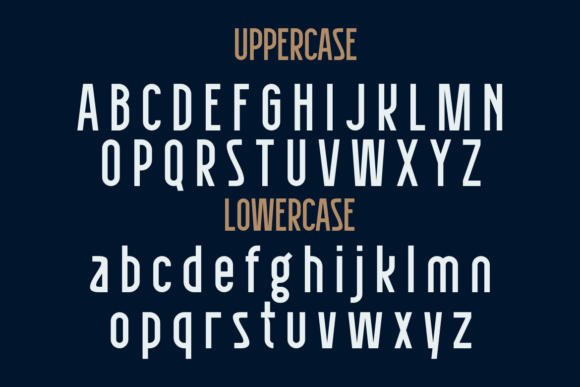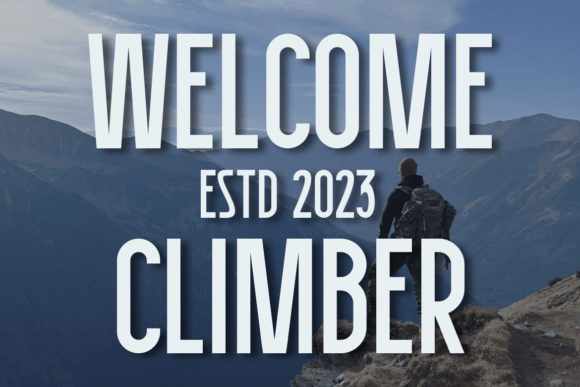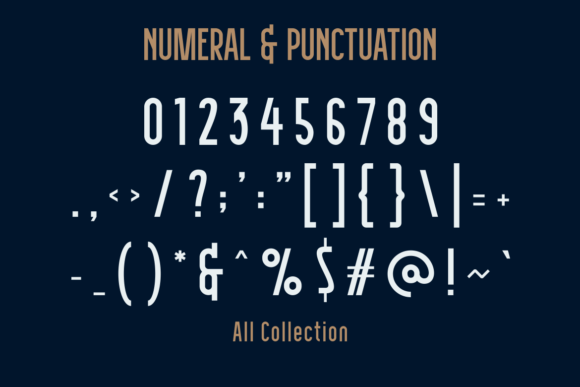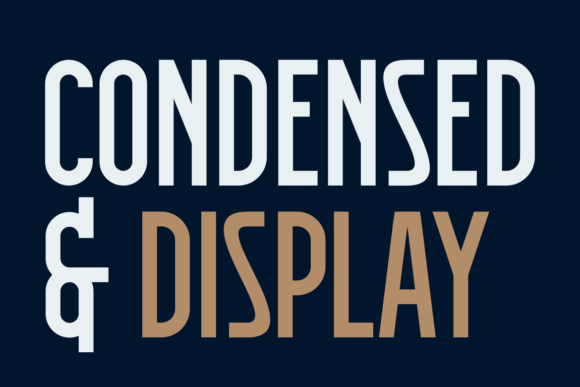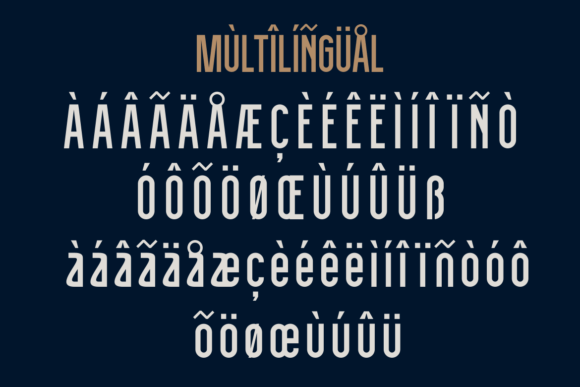
Introducing ALLASKA Font: The Modern Display Font You Need
Have you ever been in the middle of a design project, and suddenly, you’re stuck on finding the perfect font? I recall a recent experience where I was working on a branding project for an esport team, and I just couldn’t find a font that screamed ‘bold’ and ‘authentic’ enough. That’s when I stumbled upon **ALLASKA Font**, a game-changing modern display font that has become a staple in my design toolkit.
First Impressions: What I Love About ALLASKA Font
Here’s what makes ALLASKA Font stand out:
- ✨ Bold and Authentic: This font exudes confidence and modernity, making it perfect for branding projects that need to make a statement.
- ✅ Versatile: From logos to template designs, esport branding, and more, ALLASKA Font shines in a wide range of contexts.
- 🔥 Attention-Grabbing: Its unique style ensures that your design won’t go unnoticed.
A Few Quirks to Consider
While ALLASKA Font is incredibly versatile, there are a few things to keep in mind:
- 🤔 Legibility at Small Sizes: Like many display fonts, ALLASKA may lose legibility when used at very small sizes. It’s best used at 24px or larger for optimal impact.
- ⚠️ Overuse: Given its bold nature, using ALLASKA Font for extended text can be overwhelming. Balance it with simpler fonts for body text.
The Story Behind ALLASKA Font
ALLASKA Font was designed with the modern brand in mind. Its creator aimed to produce a font that was not only bold and eye-catching but also versatile enough to be used across various platforms and design projects. Inspired by the vast, untouched landscapes of Alaska, the font embodies a sense of adventure and limitless possibility.
| Is ALLASKA Font suitable for body text? | While it’s primarily designed as a display font, ALLASKA can be used for short paragraphs of body text. However, for longer texts, a more legible font is recommended. |
| Does ALLASKA Font include any OpenType features? | Yes, ALLASKA Font comes with a range of OpenType features, including stylistic alternates and glyphs, enhancing its versatility. |
| Is ALLASKA Font available in different weights? | Currently, ALLASKA Font is available in a single bold weight, perfect for making a statement in your designs. |
ALLASKA Font is more than just a typeface; it’s a statement. It’s perfect for designers, crafters, and creative hobbyists looking to add a bold, modern touch to their projects. With its versatility, stunning design, and ease of use across various platforms, ALLASKA Font is set to become a favorite in your font arsenal.